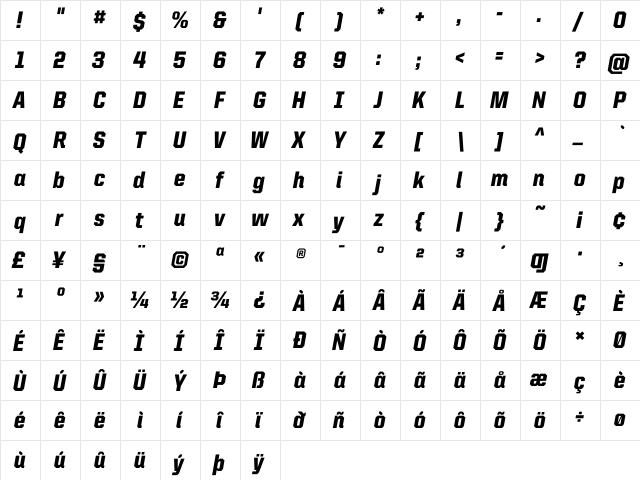
United Italic SemiCond Black Font Preview
| Foundry | House Industries |
| Designer | Tal Leming |
Design Context for United Italic SemiCond Typeface
United Italic SemiCond offers clean, dependable letterforms without strong stylistic allegiance, making it a practical choice for designers who need flexibility. The dynamic lean of this cut emphasises speed and emphasis in any layout. The condensed width makes it efficient for tight spaces without sacrificing legibility.
Pro Tip: Use United Italic SemiCond for emphasis, pull quotes, and subheadings where its slanted energy can add rhythm to the layout.